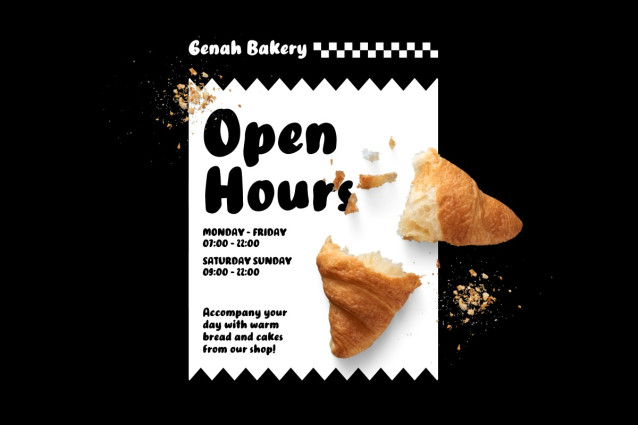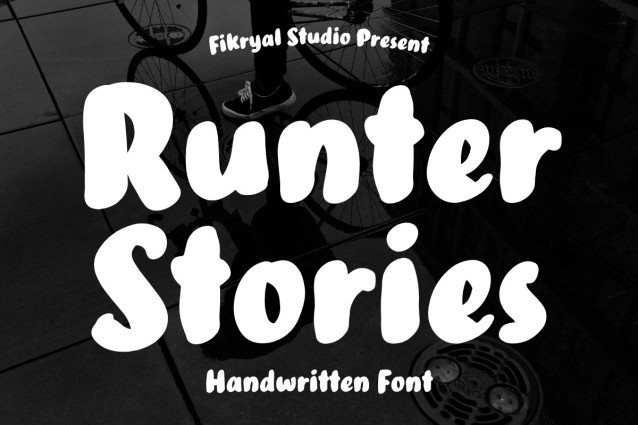
Runter Stories Font
Runter Stories Font is a bold handwritten font with a playful and lively personality. Designed with chunky yet smooth strokes, this font brings a fun and friendly vibe to any design project. Whether you’re working on branding, packaging, social media graphics, or merchandise, Runter Stories adds a natural and expressive touch that stands out.